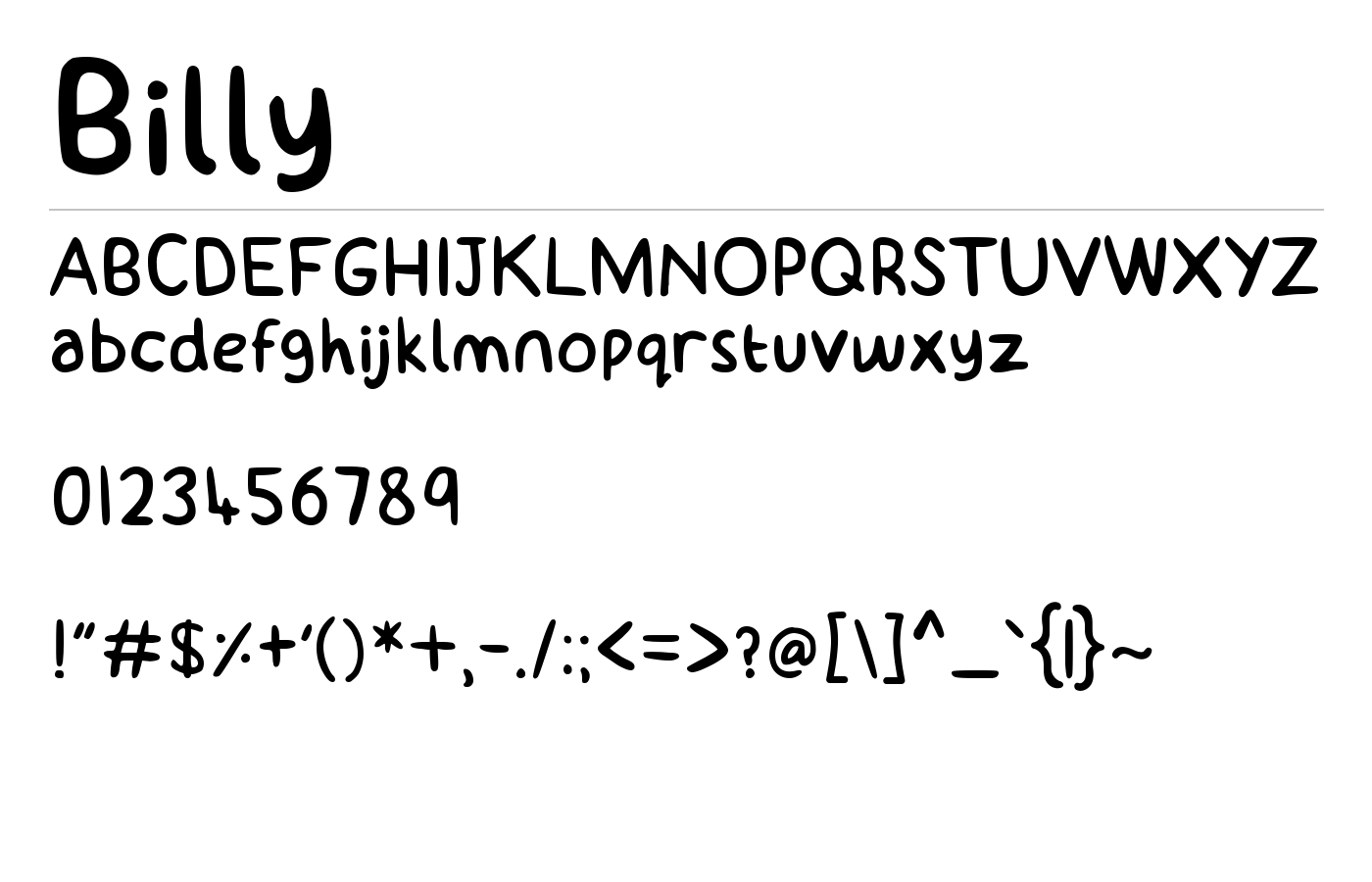
Billy Font is a playful, hand-drawn sans serif with a casual, friendly vibe. Its rounded strokes and irregular shapes give it a warm, approachable feel, making it perfect for informal designs such as children's books, fun branding, and creative projects that want to convey a sense of personality and charm.
Billy Font
About Billy Font
| Font family | Billy Font |
| Designer | Claire Joines |